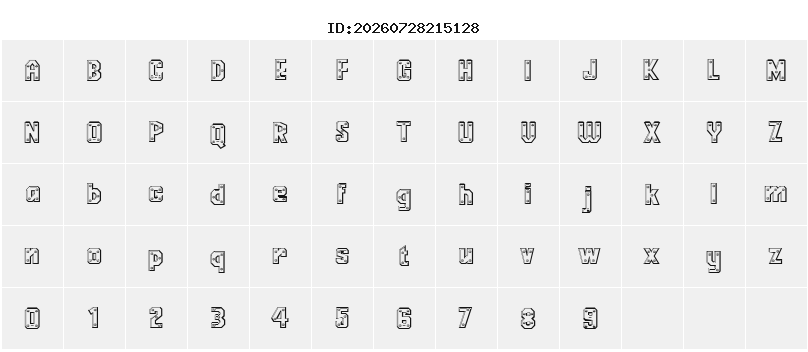
• Font Name: Messing Lettern
• Full Font Name: Messing Lettern
Messing Lettern.ttf is a modern, elegant sans-serif font designed for ultimate readability and visual harmony. Perfect for branding, headlines, web design, and print materials.